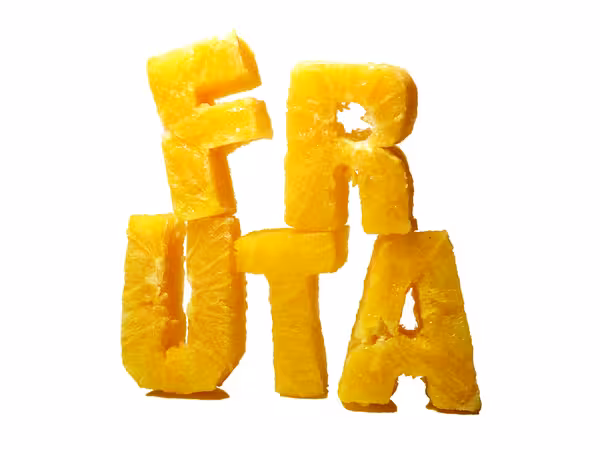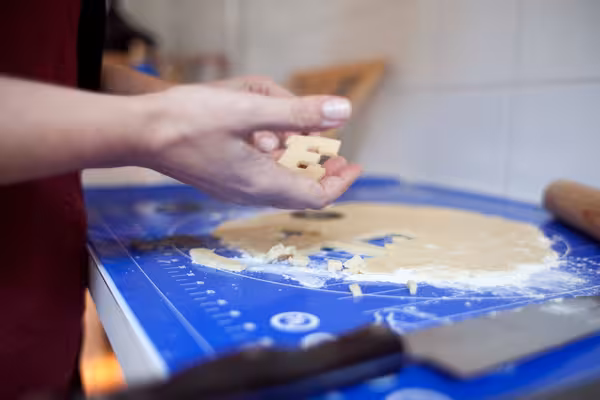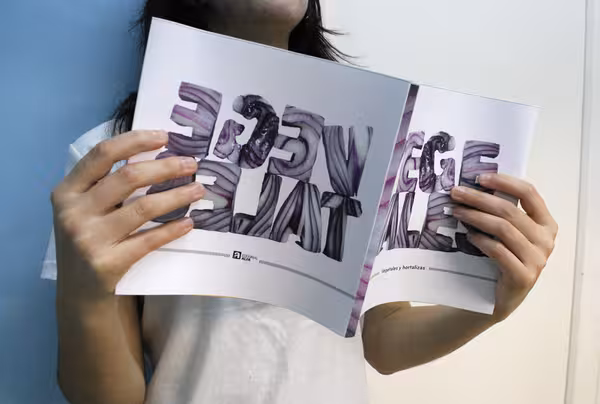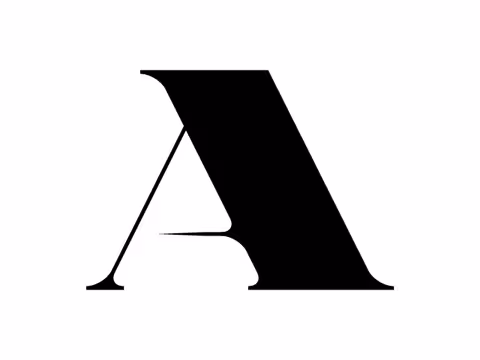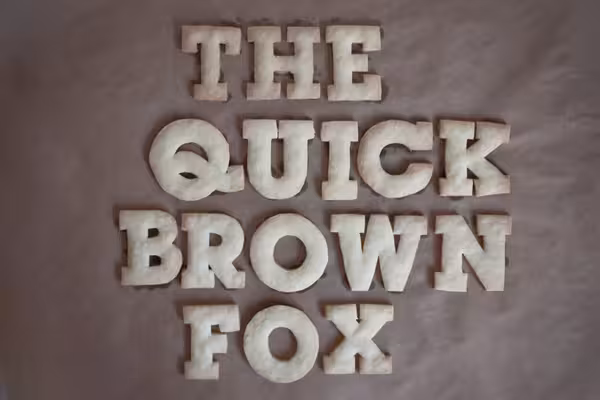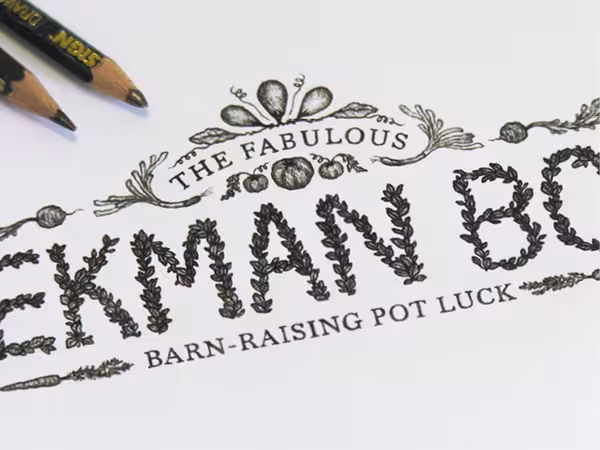
Design Inspiration: 9 Gorgeous experimental typefaces for your inner designer
Nearly every designer out there shares a strong love for typography. Of course, many of us will never become full-fledged type designers, or even dedicated typographers, but somehow we all still manage to lust for the details of gorgeous type treatments, display and text typefaces.
And out of every genre hidden in the depths of typography, from black letter to grotesque, I have the softest of soft spots for experimental typefaces. They push boundaries, and that’s exactly what keeps this industry alive and well, and so in that spirit, here’ s a list of 9 beautiful and/or handsome experimental typefaces found on Behance’s Typography Served gallery:
Paper Chain Type:
For the 2010 edition of Getxophoto we thought of leisure, which is the theme of the festival this year, and as the leisure is what people do on the free time we thought to represent it with something that will take us a long time to do so. As in the poster with the logo done in cut paper, folded and photographed we created the typeface that we call it “Paper Chain Type” as strings of paper dolls we did as a child.
Lubalin Cookies & Food Type:
These typographic experiments combine two of my favorite things into a single project: food & type.
Food & Wine Magazine Lettering:
Not a downloadable or purchasable typeface, but this hand lettering work by Sasha Prood is beyond spectacular. It’s the wild attention to detail that really gets me.
Metatron:
Metatron’s Cube is a figure of sacred geometry, known as “in sacred geometry. Its name makes reference to Metatron, an angel mentioned in apocryphal texts including the Second Book of Enoch and the Book of the Palaces.
FUNERAL:
It is beyond me as to why designer Bruce Mackay named this typeface FUNERAL, but as you can see above, it’s about as far from death and sadness as you could imagine.
Venin:
Venin pushes thick and thin far beyond its limits — to the point where the thins disappear into the background. From a distance, this face feels sharp and hard, but up close it feels fluid and expressive, making it more dynamic than you’d think.
Dimencia:
Dimencia collaborates the essence of 3D principles and 2D design in a graphic display. Suited as an elegant and suave headline font, the letters are composed of very thin strands of thread hooked onto needles and cut paper mounted on the background. The movement of the strands creates a linear movement while the thick elements provide a pause for the eye to rest on. This high contrast conveys a unique visual effect and the use of the pin needles allow the letters to be interactive; the form of the letters change as the viewer moves his or her position from the work.
Baby’s Breath:
Baby’s Breath is a typeface formed with Gypsophila/Baby’s Breath. The meaning of Gypsophila is to miss, to adore, and to give. Gypsophila often serves a supporting role, but its existence is significant. This font should have a feeling of freshness, graciousness, and tenderness. I made three different sets of the typeface, the Autumn, the Winter, and the Baby’s Breath.
There’s something amazing about the designers that take on the tremendous goal of creating their own font. The devil’s in the details as far as the brunt of the creation process goes, and like I’ve written before, the entire process requires a special breed of designer.